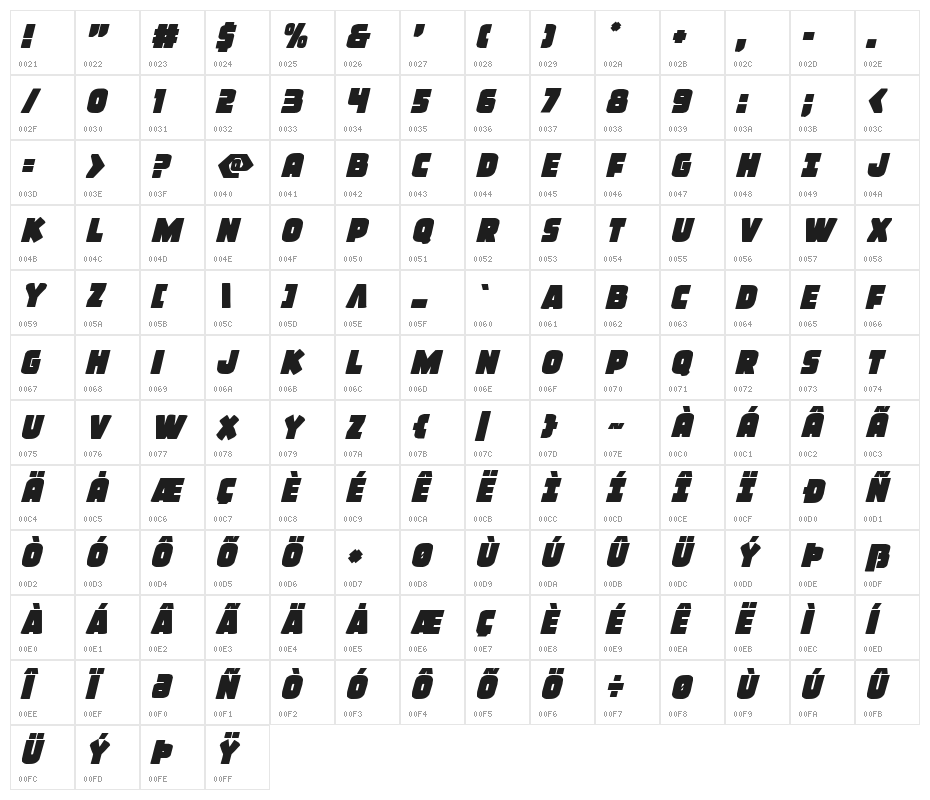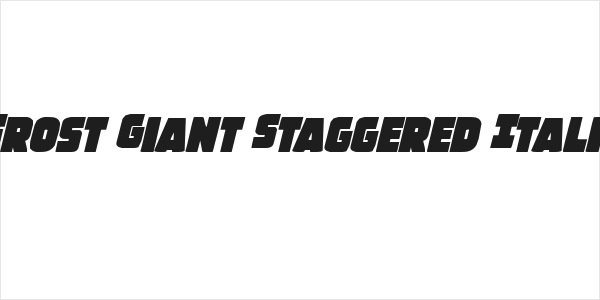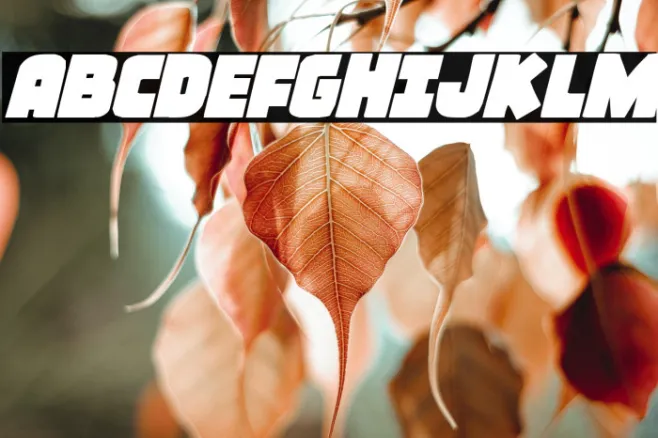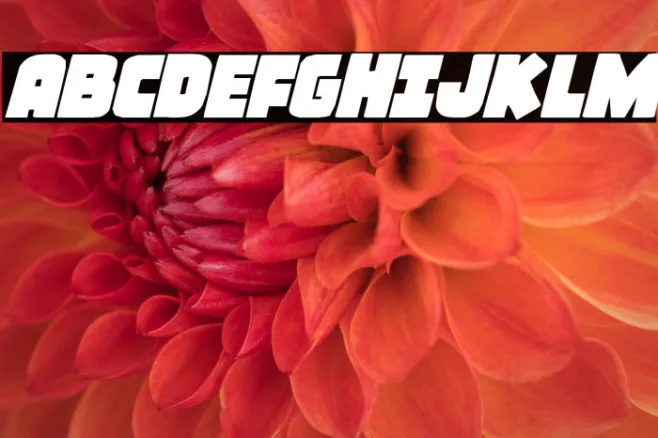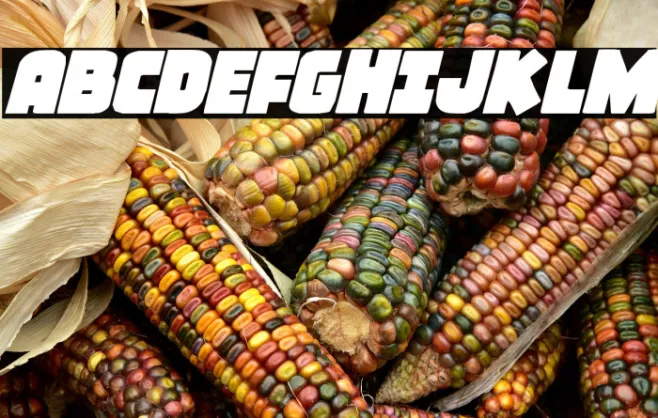
Frost Giant Staggered Italic Font
Frost Giant Staggered Italic Description
This bold and dynamic font features a staggered italic style that gives it a sense of movement and energy. The characters are heavily weighted with thick strokes, creating a strong visual impact. The uppercase and lowercase letters maintain a consistent style, with sharp angles and a slightly condensed form. The numbers and special characters follow the same bold and italicized design, ensuring uniformity across all elements. The font's unique style makes it stand out, perfect for projects that require a striking and modern appearance.